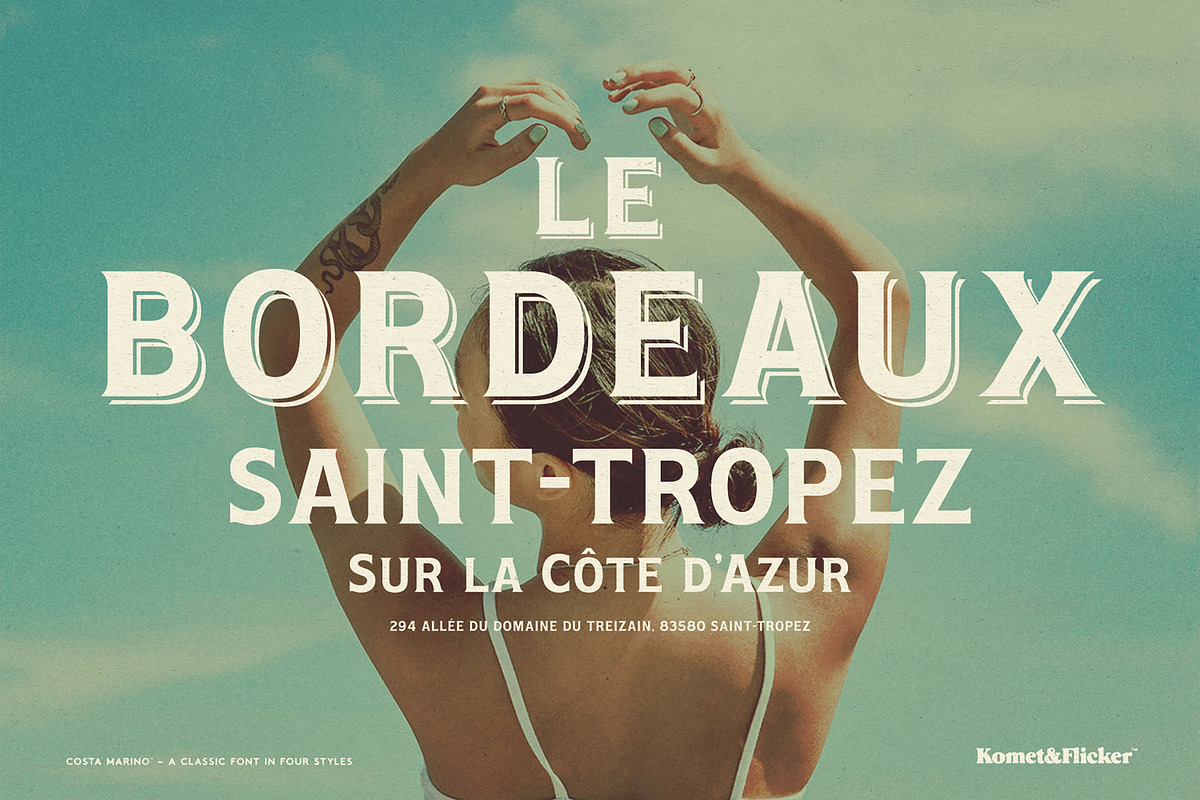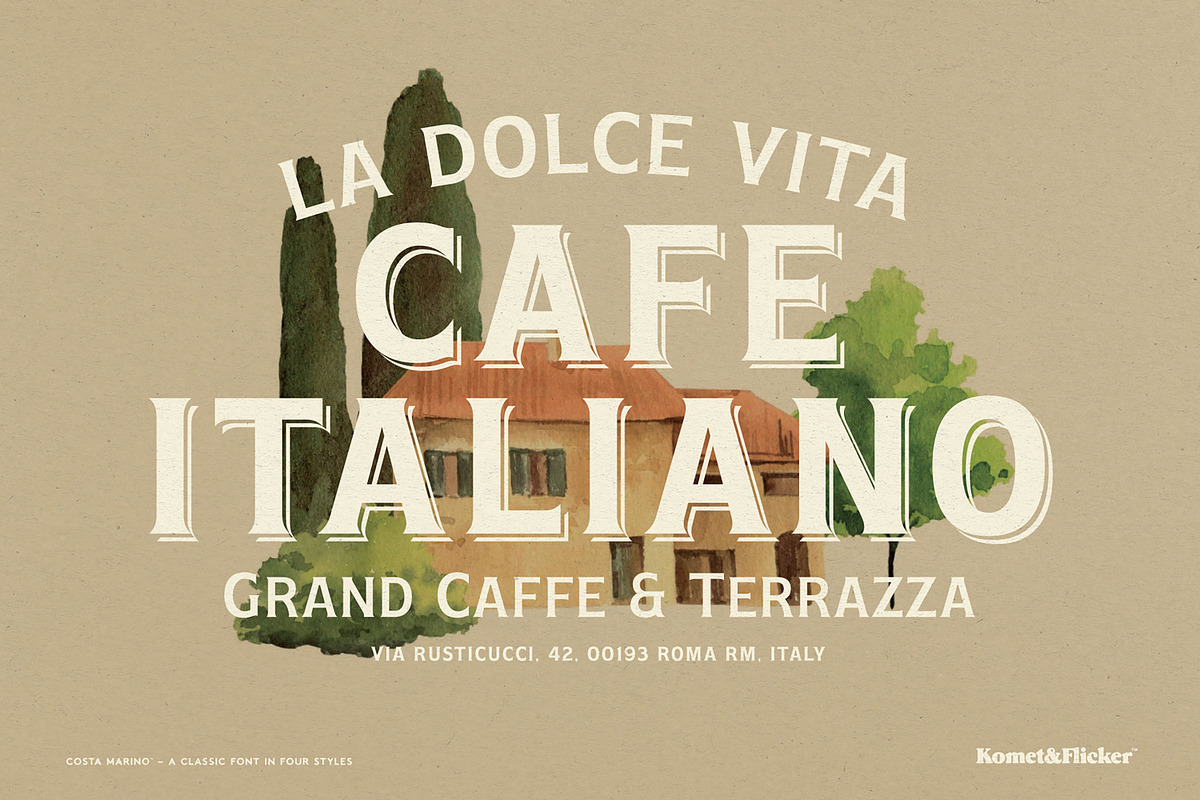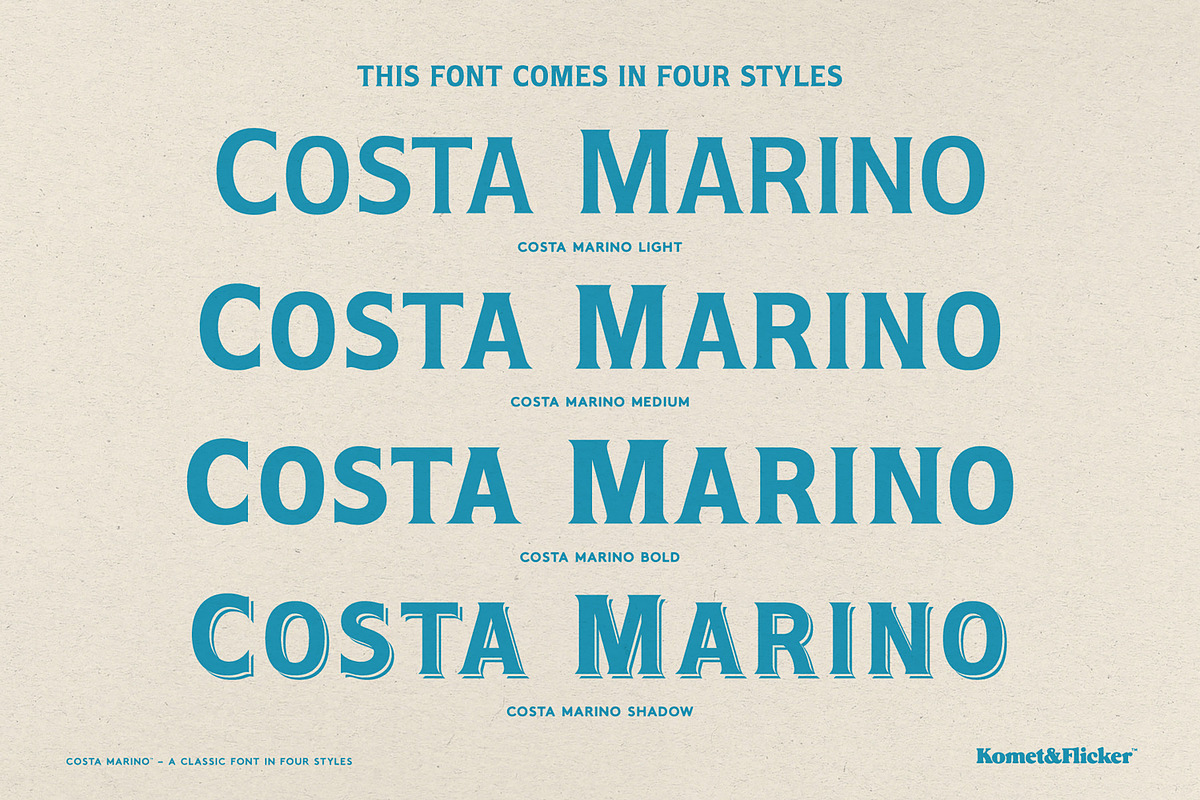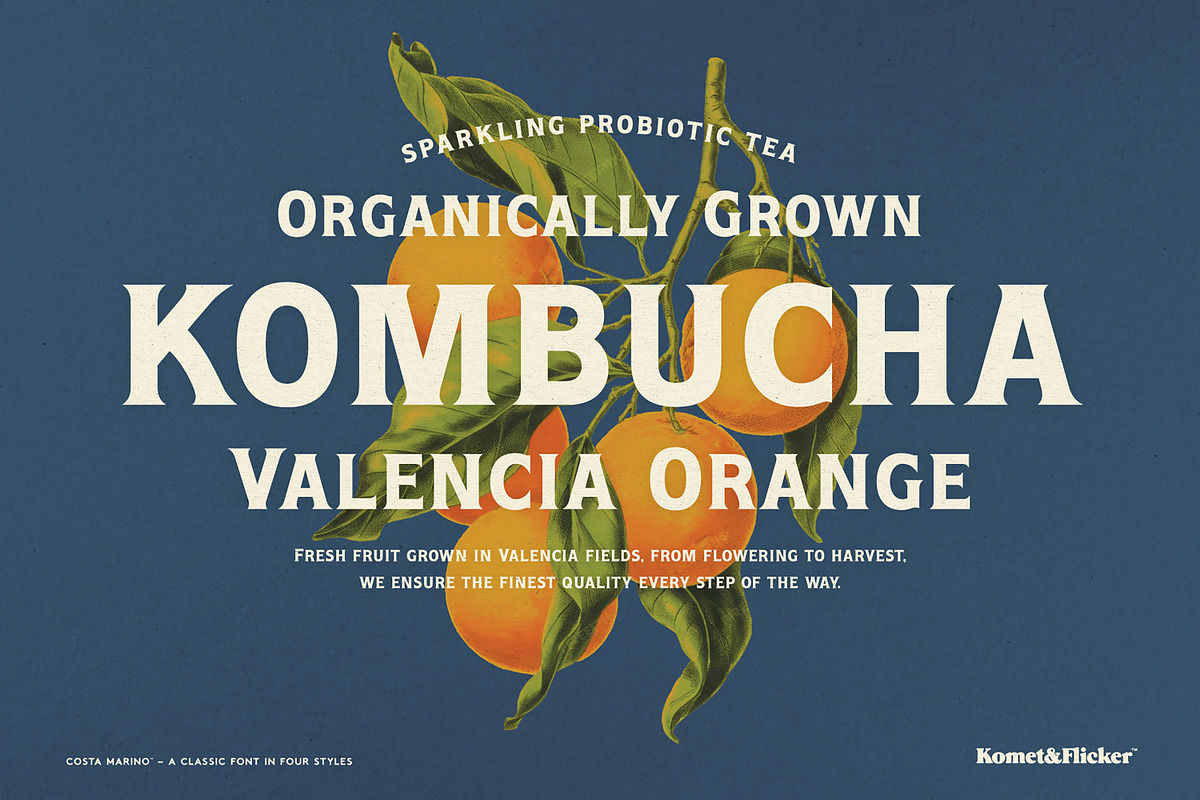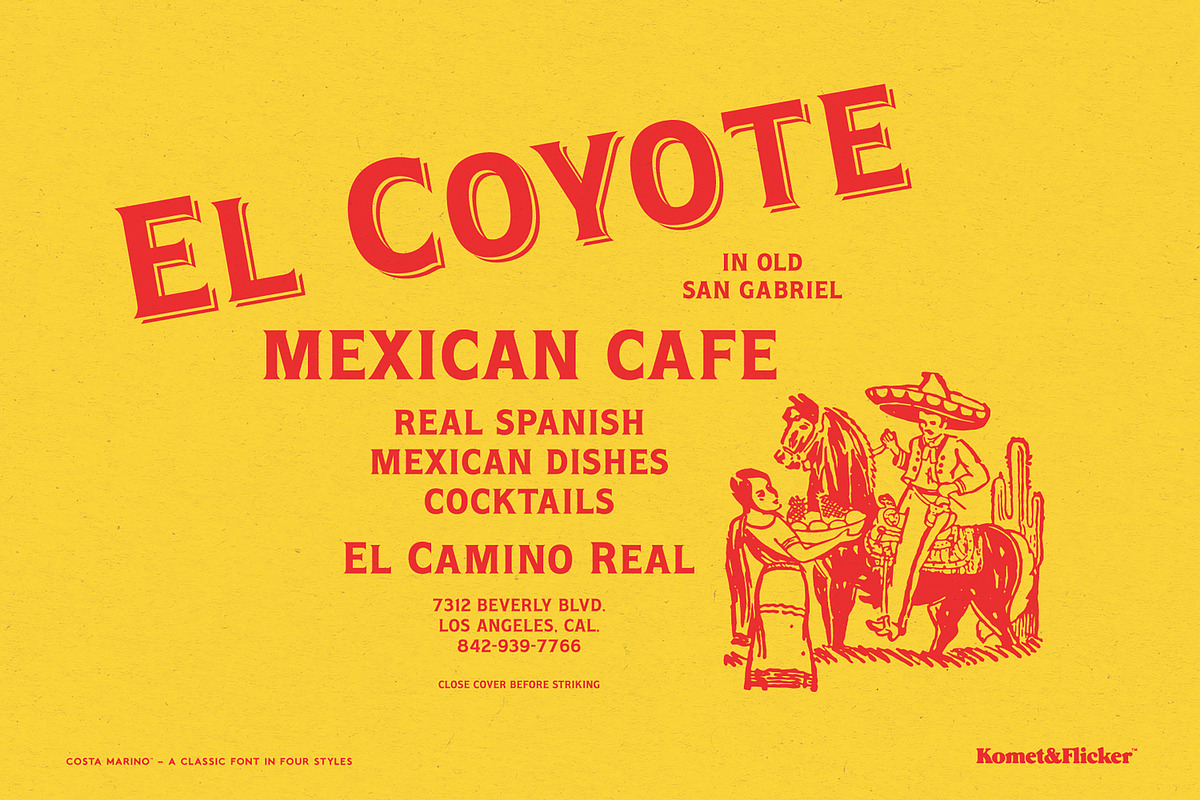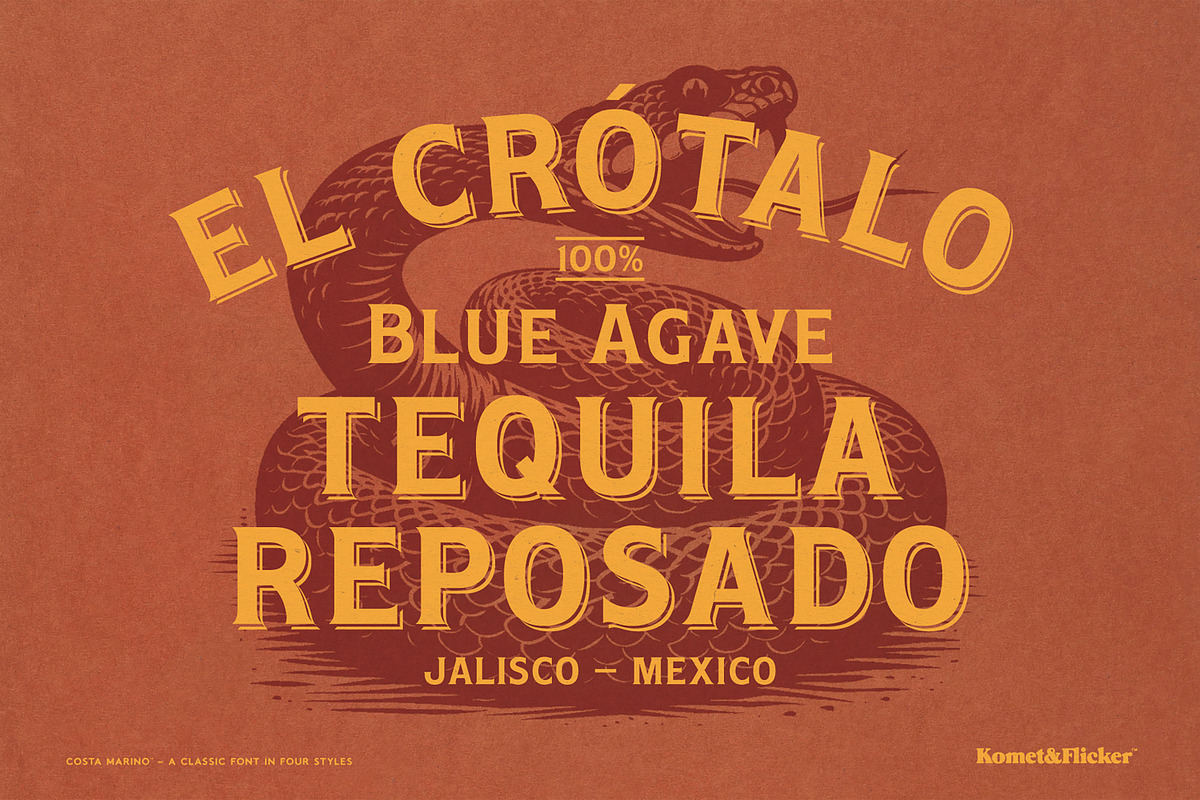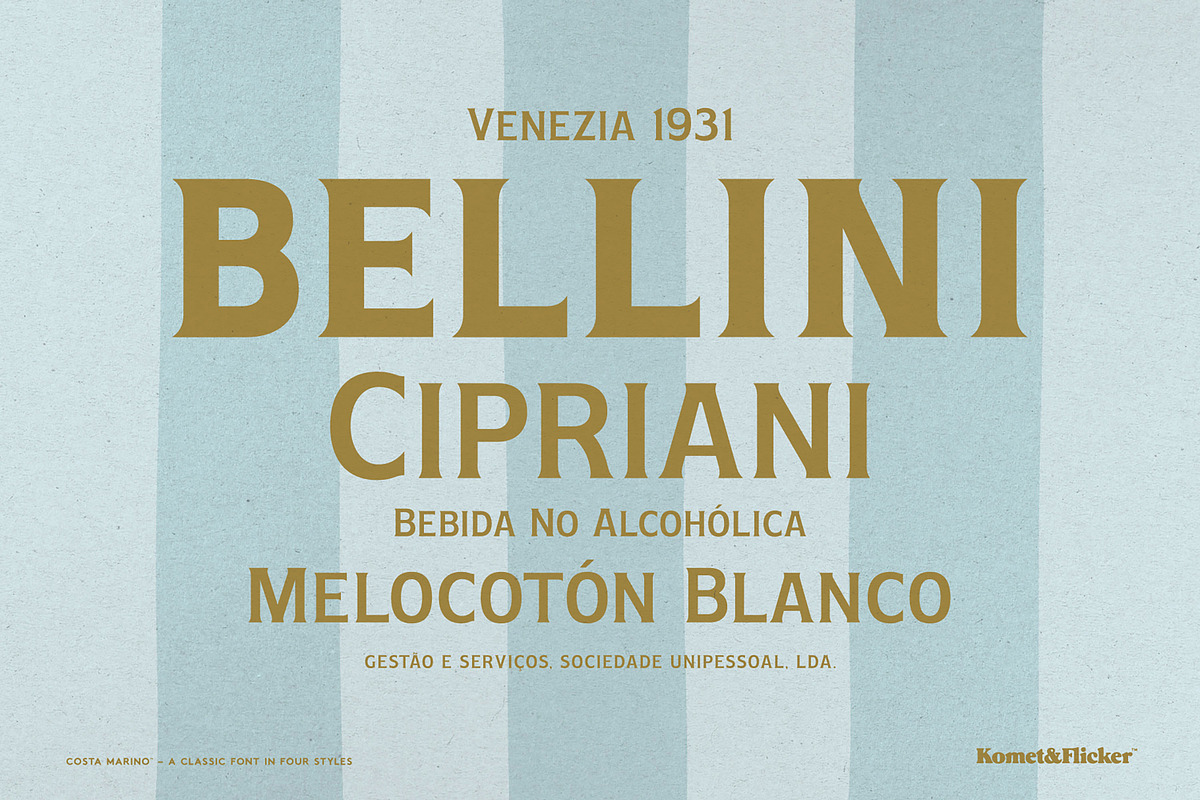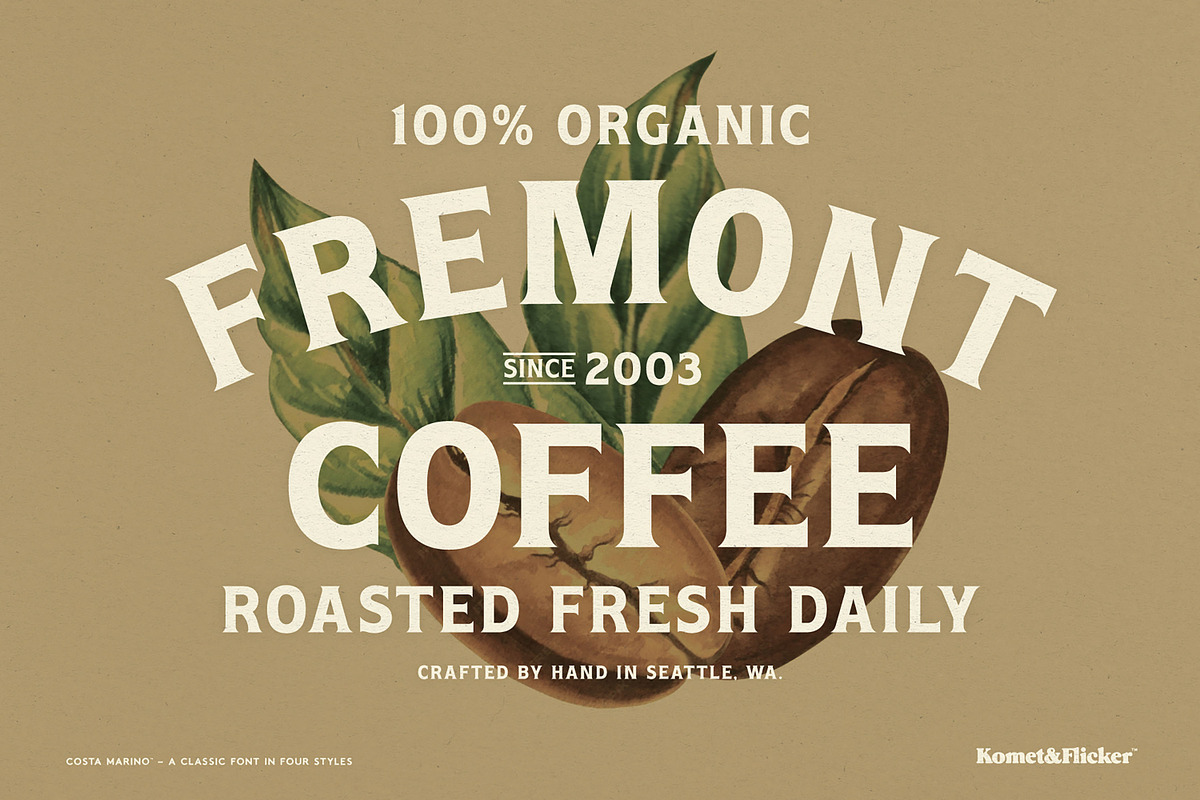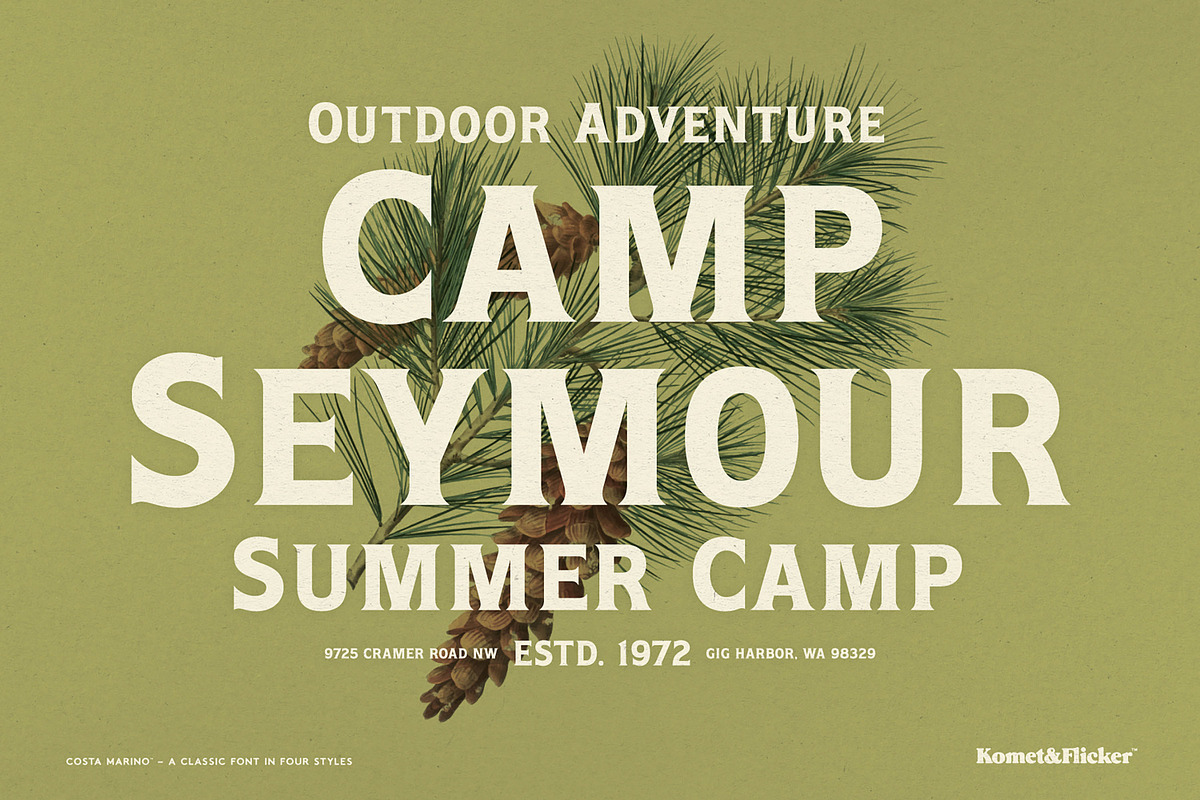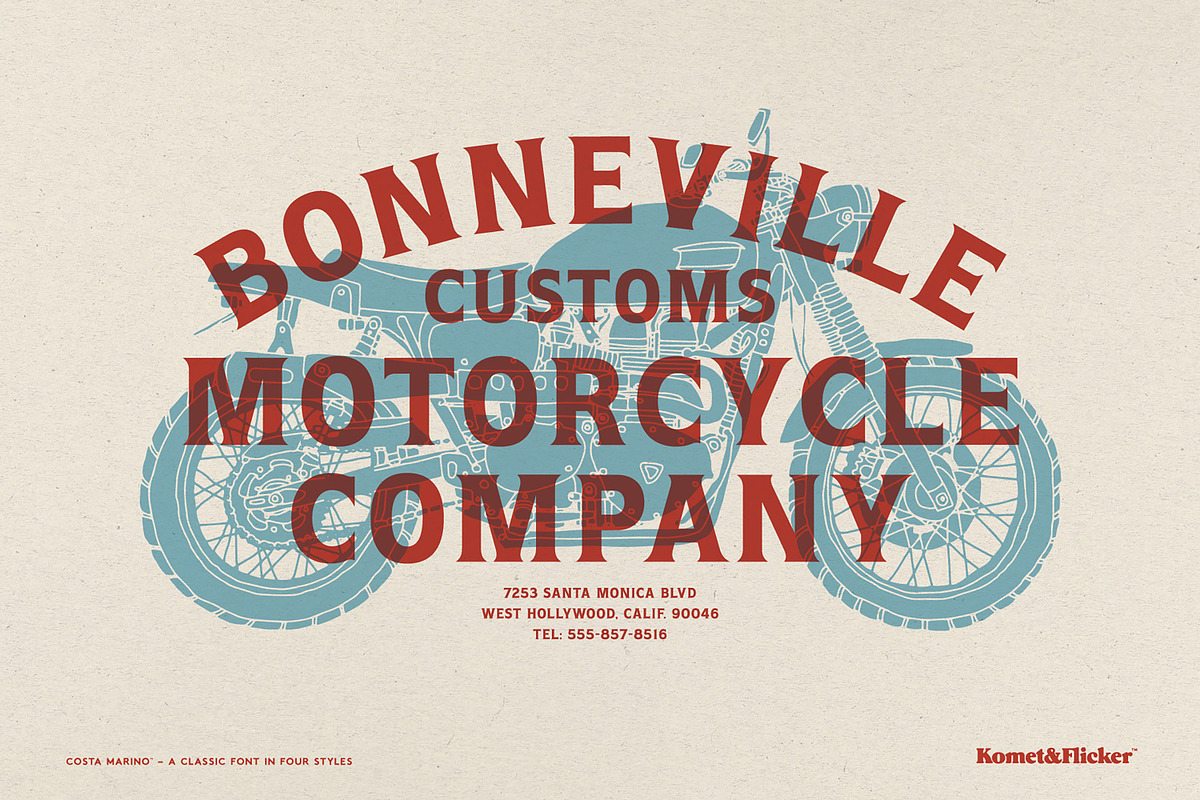
Costa Marino - A Classic Style Font
Costa Marino – A Timeless Classic with European Charm
Costa Marino is a small caps font that captures the refined elegance of old-world European signage while introducing a fresh, modern sophistication. Inspired by the golden age of hand-painted shopfronts, cafés, and coastal lettering, Costa Marino blends heritage and modernity in perfect balance for a typeface that feels both nostalgic and effortlessly current.
With four distinct weights – Light, Medium, Bold, and Medium Shadow – Costa Marino offers the versatility to create layered, expressive typography for any setting. It shines in brand identities, packaging, restaurant graphics, and classic-inspired communications, where a touch of timeless European character can elevate your message.
And to make your designs even more distinctive, Costa Marino includes a set of 11 custom connecting words (such as AND, OF, THE) beautifully crafted in three stylistic variations for seamless, decorative typography.
Whether you’re evoking the spirit of vintage lettering or seeking a classic touch for modern branding, Costa Marino brings classic character and contemporary versatility together in perfect balance.
Full A-Z caps & small caps basic latin characters
Select European specific characters
Numbers, punctuation, and select symbols
Pre-made common fractions
Set of 11 custom connecting word glyphs in three styles